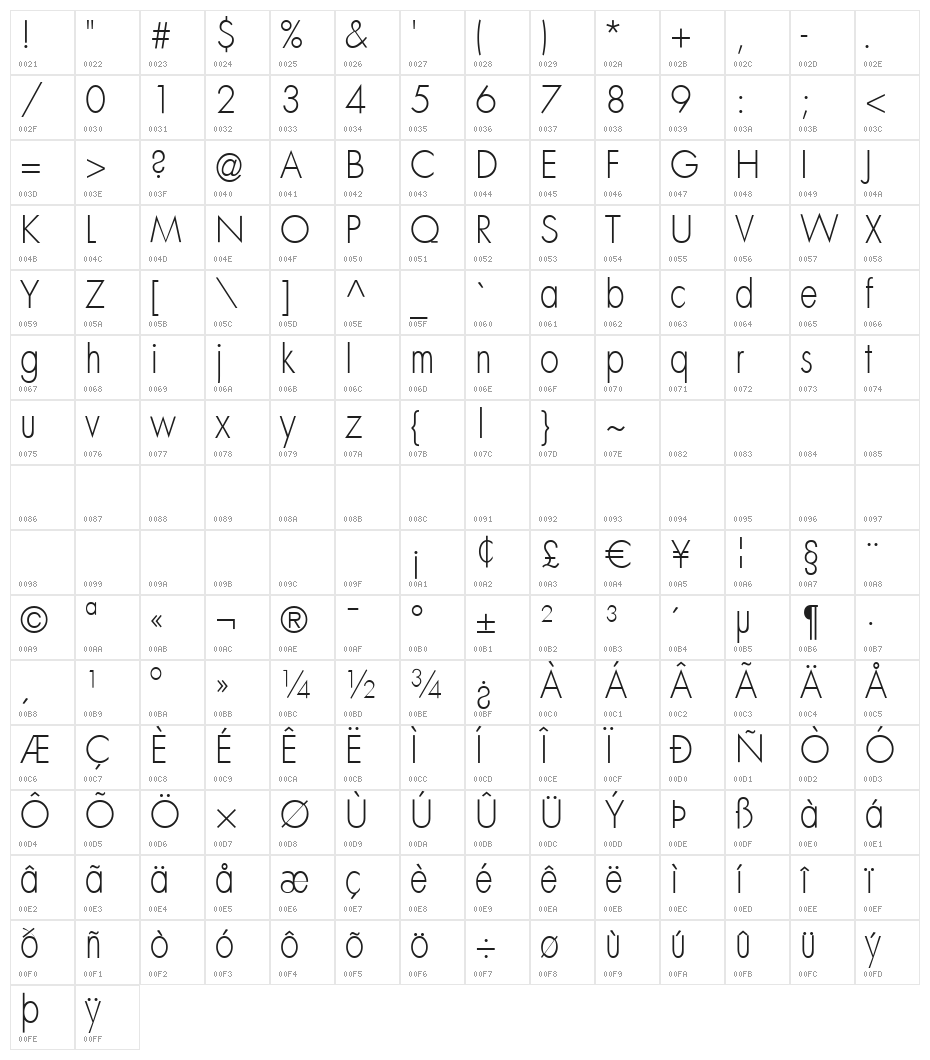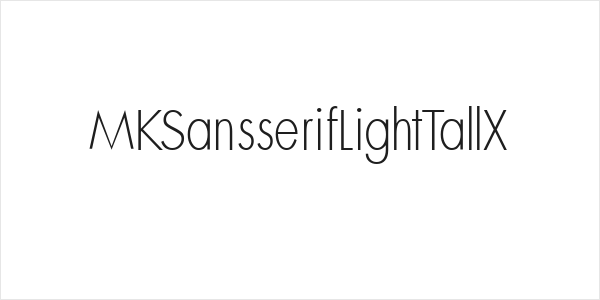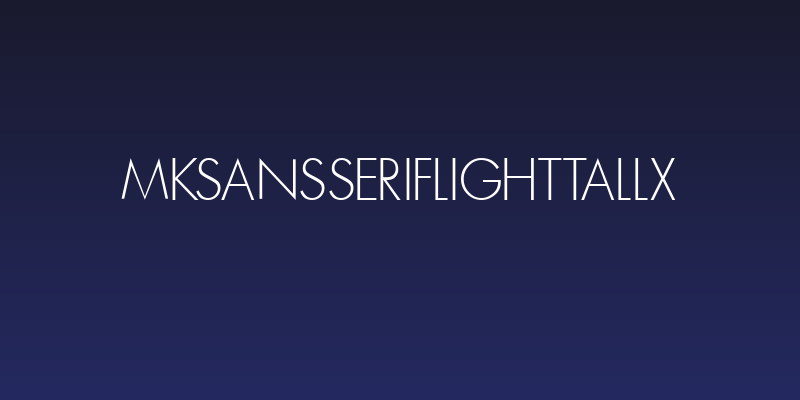
MKSansserifLightTallX Font
MKSansserifLightTallX Description
This typeface is a sleek and modern sans-serif font characterized by its tall and narrow letterforms. The design is clean and minimalistic, with a consistent stroke width that gives it a uniform appearance. The uppercase and lowercase letters are well-proportioned, and the numerals are clear and legible. Special characters are included, maintaining the same elegant style. This font's simplicity and clarity make it versatile for various design applications.
| Proposed Projects | Ideal for use in branding, editorial design, web design, and advertising where a modern and clean look is desired. |